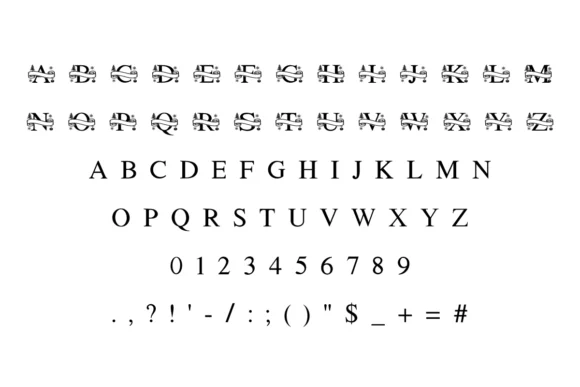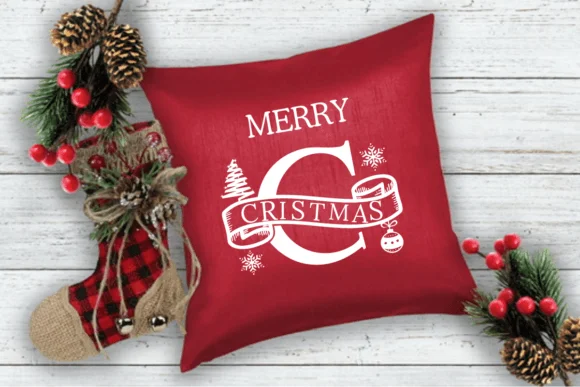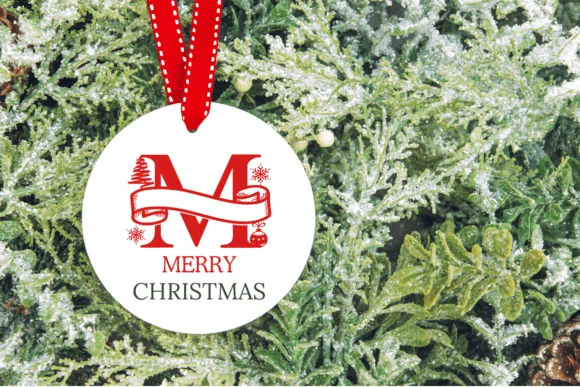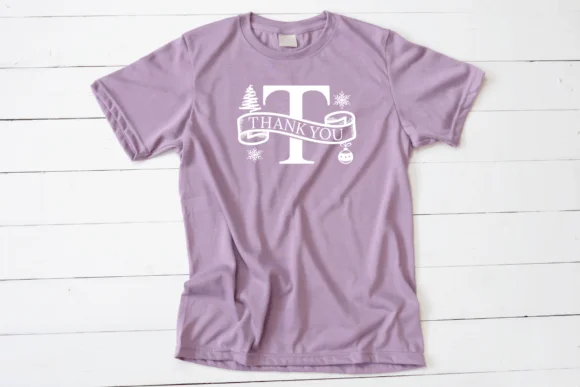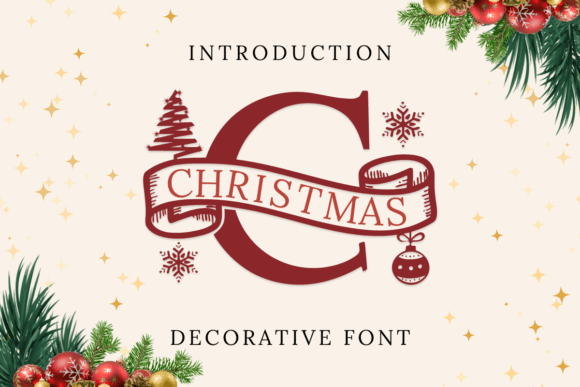
Christmas Font Font
This classic font is perfect for Christmas greeting cards, holiday marketing campaigns, festive party invitations, Christmas website designs, seasonal promotional materials, holiday social media graphics, Christmas packaging designs, festive email templates, holiday newsletter layouts, and traditional Christmas decorative projects.
Christmas Font is exciting because it represents the perfect embodiment of holiday typography, combining timeless Christmas aesthetics with versatile functionality that adapts to any festive project or seasonal celebration. The font features beautifully crafted letterforms with traditional proportions and subtle holiday-inspired details that instantly evoke the warmth, joy, and magical spirit of Christmas without overwhelming the text with excessive ornamentation. Each character showcases balanced design principles with gentle curves and festive touches that make any message feel celebratory and seasonally appropriate. The design captures the universal appeal of Christmas celebrations, creating typography that resonates with diverse audiences across cultures and generations while maintaining the classic elegance that makes Christmas communications memorable and impactful.
The Christmas Font family includes versatile style variations: Regular, Bold, Light, Italic, and Extended versions. The collection features special holiday elements including subtle snowflake accents, gentle star details, traditional ornament touches, and classic seasonal flourishes. Additional components include festive borders, holiday frames, traditional decorations, and timeless ornamental designs that enhance the font's Christmas versatility and create cohesive seasonal design solutions for any project.
Professional designers and marketers will find Christmas Font to be an essential typography resource for creating effective holiday communications that capture the spirit of Christmas while maintaining broad appeal and professional quality. This expertly crafted font transforms ordinary seasonal text into engaging Christmas messages that connect with audiences and enhance the festive atmosphere of any holiday project or campaign.
The typeface includes extensive character support with international language compatibility and comprehensive punctuation sets for global Christmas applications. The font's balanced design ensures optimal performance across all media formats, from digital displays to printed materials, while consistently delivering the festive impact that makes Christmas communications successful.
Perfect for businesses, organizations, families, and designers working on any Christmas project, this font delivers reliable visual impact that communicates the joy, warmth, and universal celebration of Christmas through typography that honors traditional holiday values while meeting contemporary design standards.